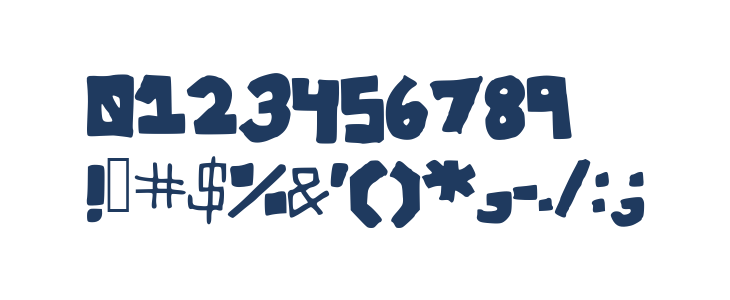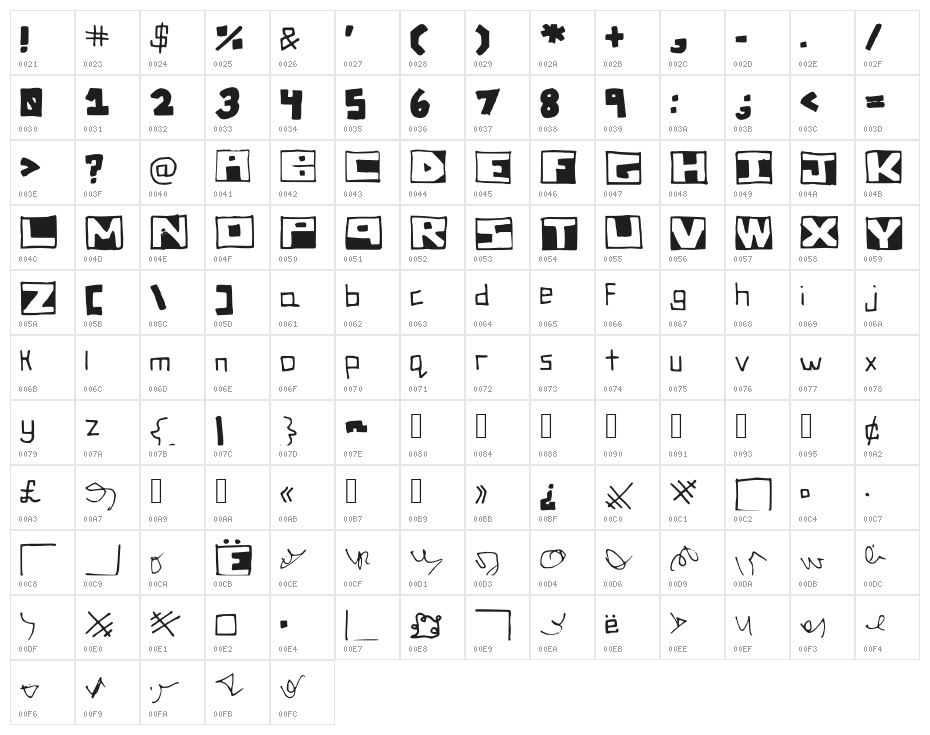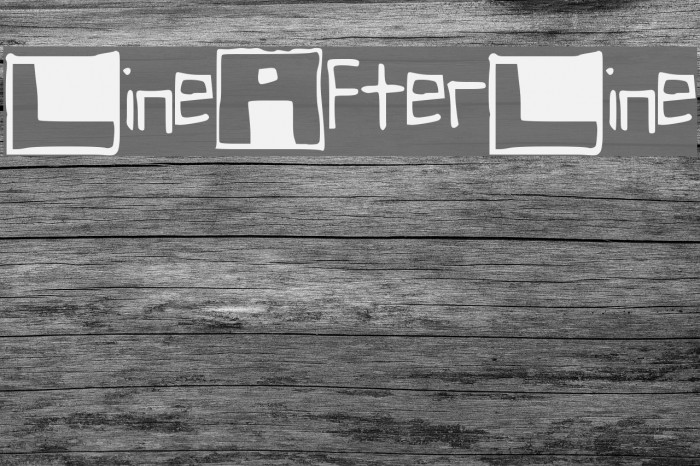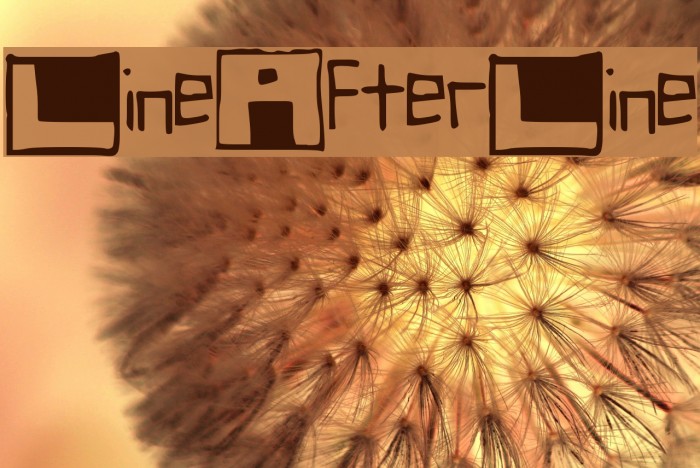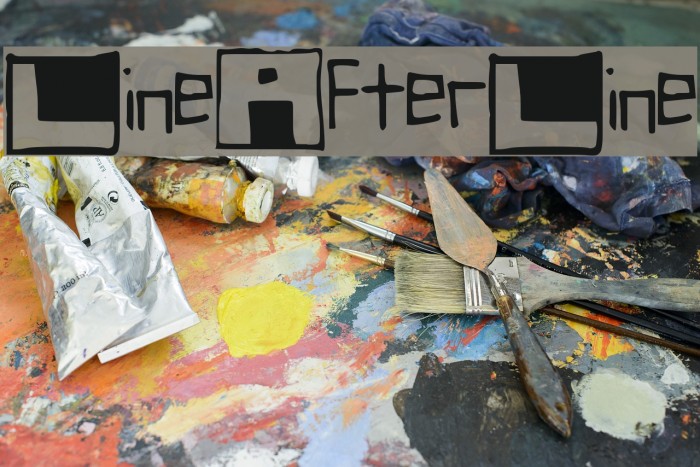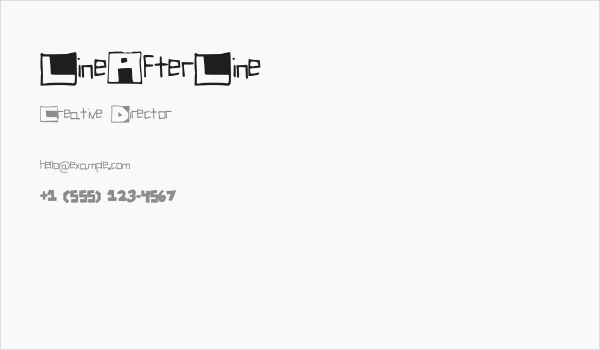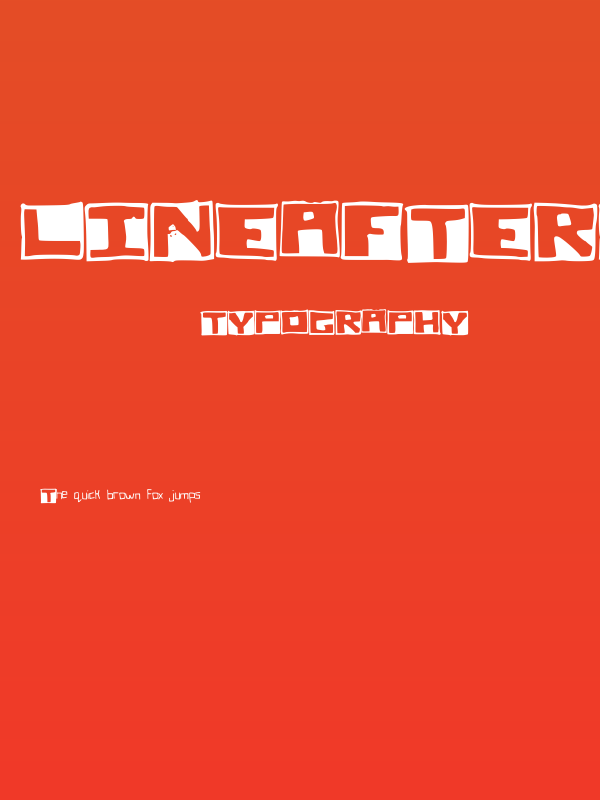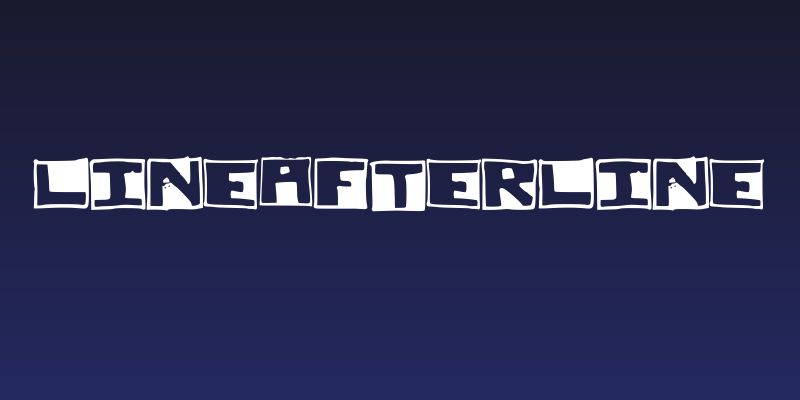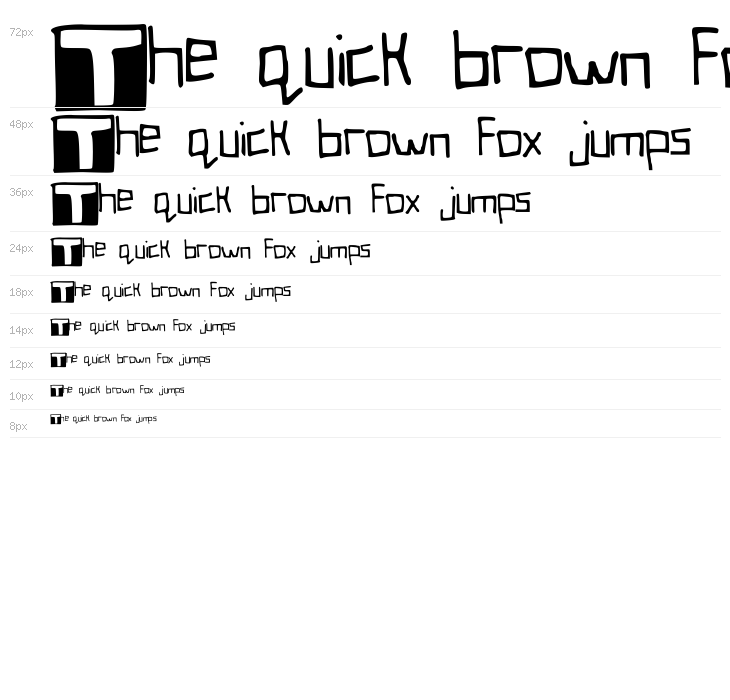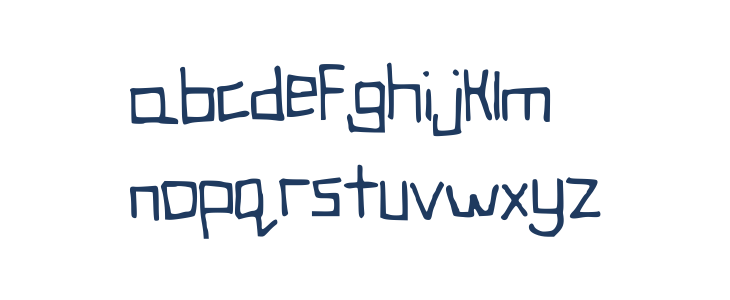
LineAfterLine Font
LineAfterLine Description
This font features a bold and playful design with a hand-drawn aesthetic. The uppercase letters are enclosed in irregular, blocky shapes, giving them a unique, almost graffiti-like appearance. The lowercase letters are more fluid and organic, with a slightly uneven baseline that adds to the casual, informal feel. The numbers are bold and chunky, maintaining the playful theme. Special characters are creatively designed, fitting well with the overall style. This font's quirky and artistic vibe makes it stand out, perfect for projects that require a touch of creativity and fun.
| Overall Style | Playful, Artistic |
| Proposed Projects | Ideal for posters, children's books, creative branding, and artistic projects. |